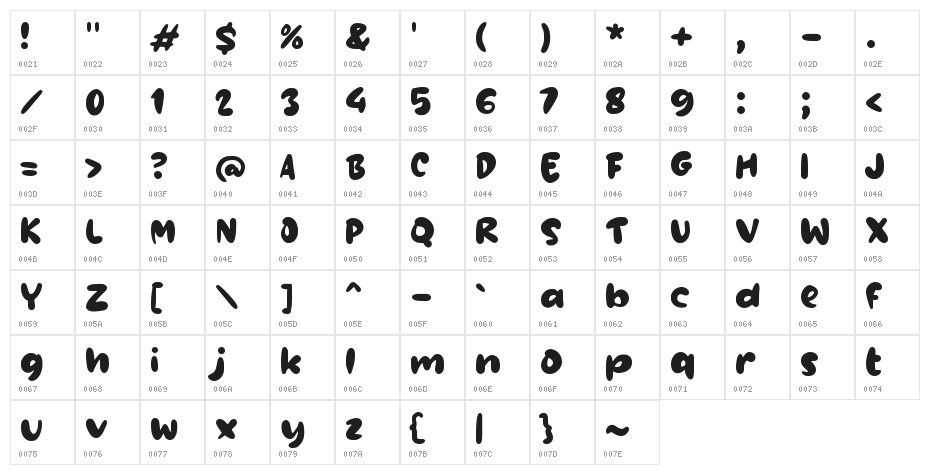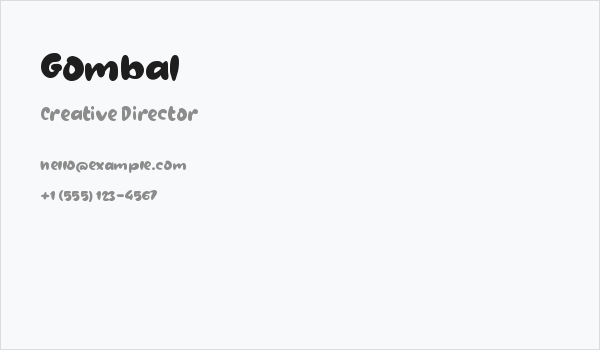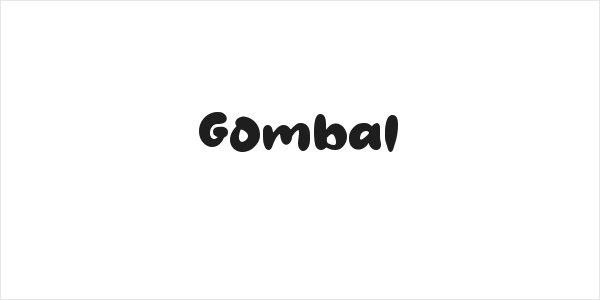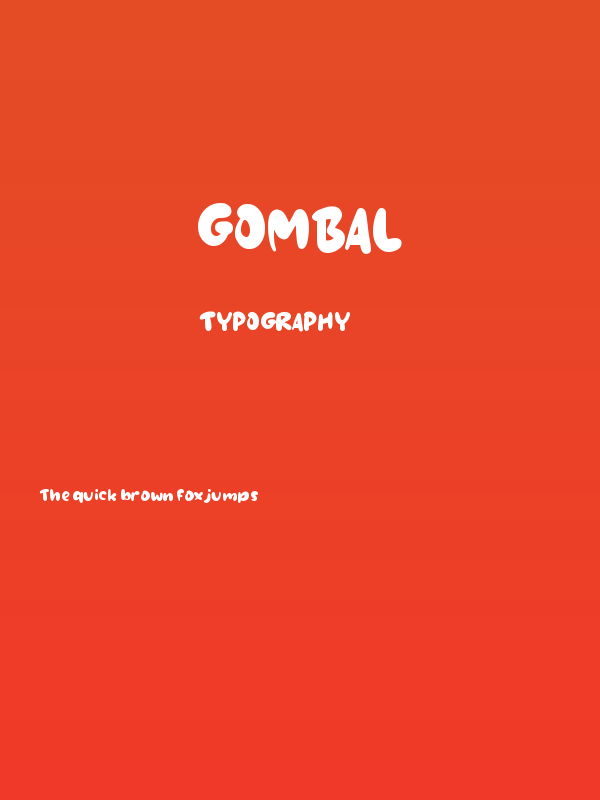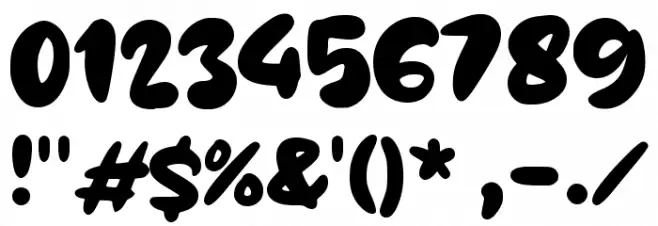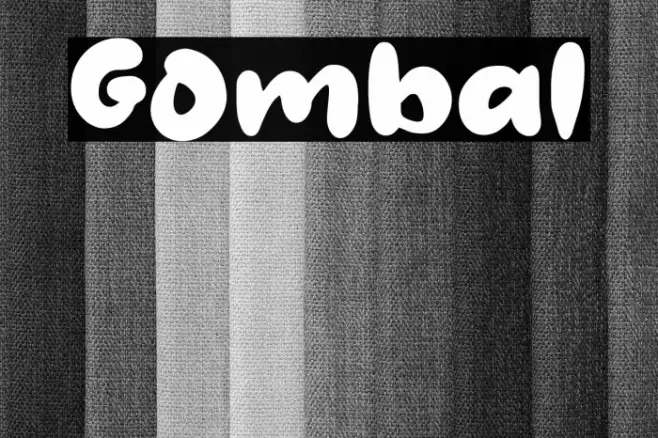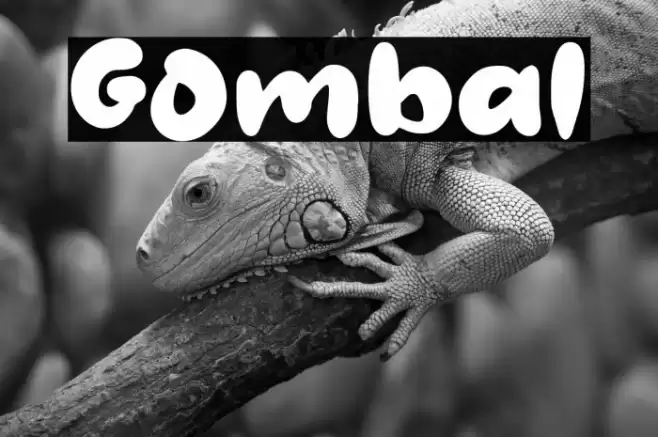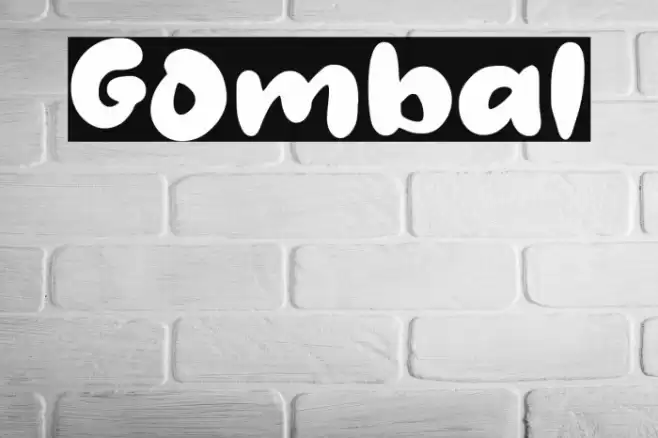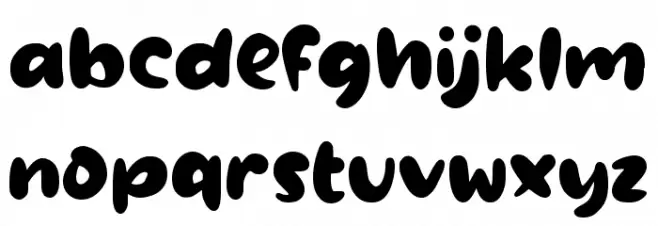
Gombal Font
Gombal Description
This playful and bold font features rounded, bubbly characters that convey a sense of fun and whimsy. The letters are thick and substantial, with a consistent stroke width that gives the font a cohesive and unified appearance. The uppercase and lowercase letters maintain a similar style, ensuring readability while adding a touch of personality. The numerals and special characters are equally bold and rounded, making them stand out prominently. This font is ideal for projects that require a friendly and approachable aesthetic, such as children's books, playful branding, or casual invitations.
GOMBAL UPPERCASE
GOMBAL LOWERCASE
GOMBAL OTHER CHARS
| Proposed Projects | Ideal for children's books, playful branding, casual invitations, and fun posters. |